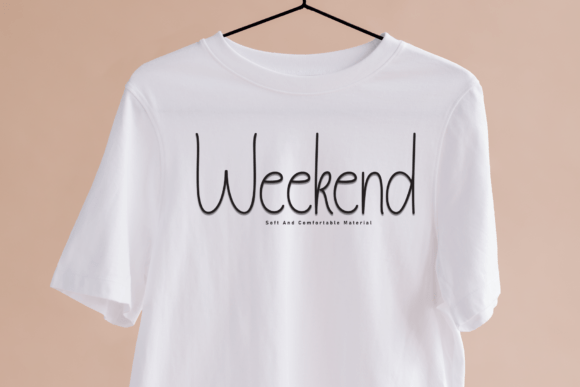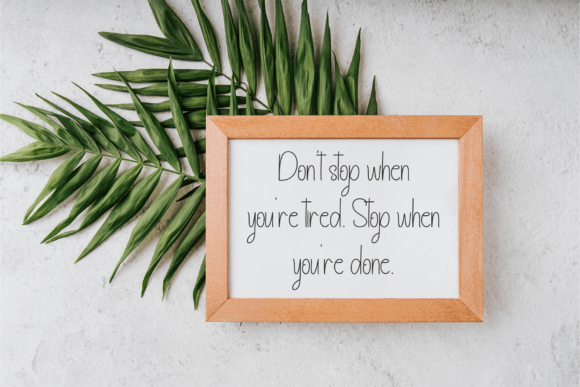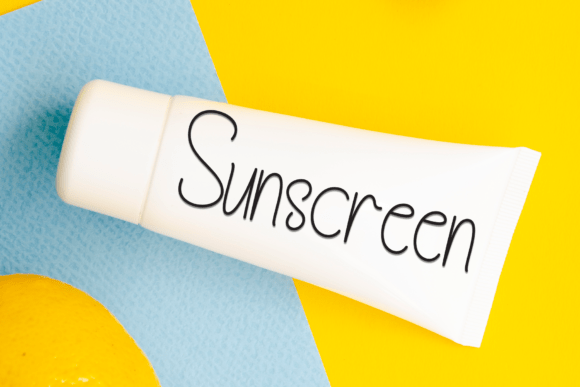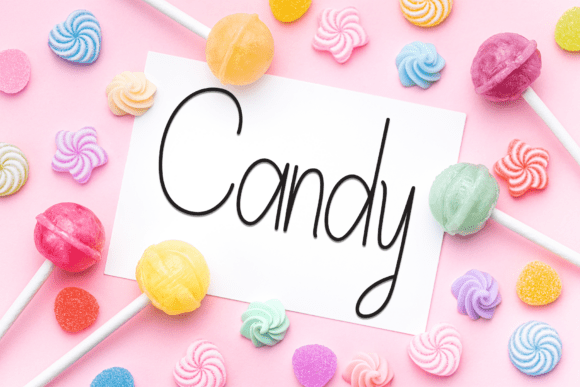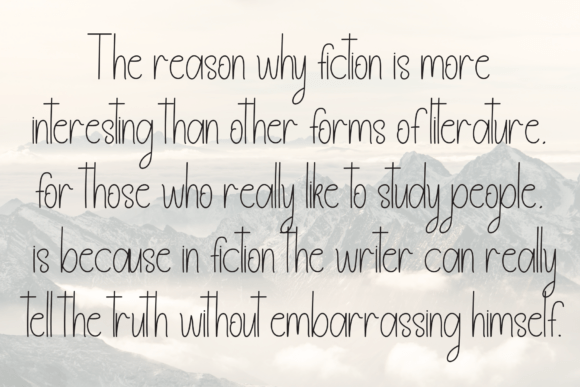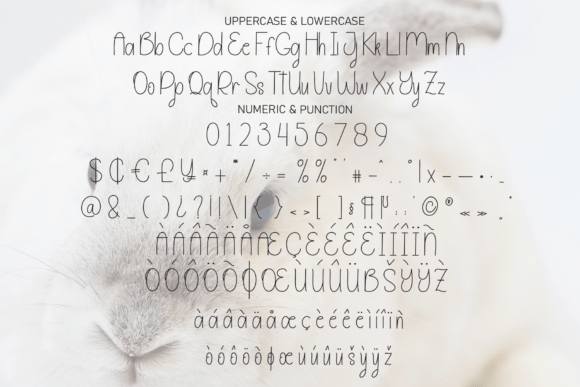
Discover the Magic of the Bunny Easter Font
As designers, we’ve all been there – staring at a blank canvas, struggling to find the perfect font to bring our creative vision to life. It’s that moment when the right typeface can make all the difference, elevating our work from ordinary to extraordinary. For me, it was the discovery of the Bunny Easter Font that sparked a new wave of inspiration.
This stylish handwritten script font is more than just a pretty face – it’s a powerful tool that can add warmth, sophistication, and creativity to any design. With its fluid strokes and charming curves, the Bunny Easter Font is perfect for logos, packaging, and invitations, making it a valuable addition to any designer’s toolkit. Whether you’re a seasoned pro or just starting out, this versatile typeface is sure to bring a personal touch to your projects.
Bunny Easter Font Key Features
- Unique Characteristics: Whimsical and playful design, featuring Easter-themed illustrations and decorations, making it perfect for holiday-themed projects
- Font Style: Includes regular, bold, italic, and bold-italic styles for added versatility
Bunny Easter Font Review
The Bunny Easter Font is a fun and playful font perfect for any Easter-themed project. ✨ Its whimsical design and colorful flair will surely add a touch of festive cheer to your designs. The font is well-suited for headings and titles, and its cursive script style makes it a great choice for quotes and phrases.
One of the standout features of this font is its versatility. ✨ It comes in a range of colors, including pastel shades, bright primaries, and metallic tones, making it easy to match with your brand’s color scheme. Additionally, the font is fully editable, allowing you to customize the colors and styles to fit your needs.
- ⚠️ The font may be too playful for more formal or professional projects.
- ⚠️ The color palette is limited to Easter-themed colors, which may not be suitable for all designs.
- ⚠️ The font is not suitable for large blocks of text, as it can be difficult to read at smaller font sizes.
Overall, the Bunny Easter Font is a delightful addition to any designer’s toolkit. While it may have some limitations, its versatility and playful charm make it a great choice for Easter-themed projects and any design that needs a touch of whimsy.
The Bunny Easter Font is ideal for creating Easter-themed designs, such as:
– Easter egg invitations
– Spring-themed social media posts
– Easter basket labels
– Easter card designs
– Spring-themed party decorations